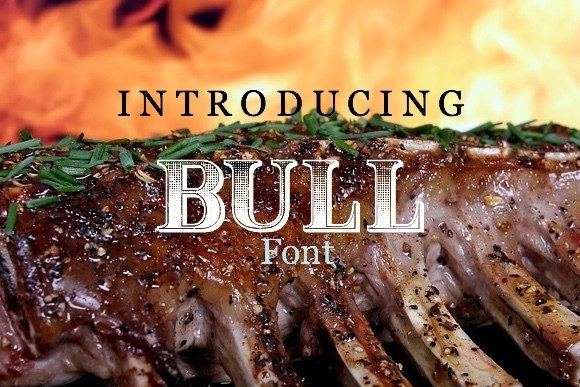
Journey into the Realm of Elegance with Bull Font - The Epitome of Sophistication and Grace
Bull Font - A Timeless Serif Masterpiece
Prepare to be spellbound by Bull Font, a serif marvel that will transport your creative visions to new heights of elegance. With its captivating curves and refined strokes, this font exudes an aura of sophistication that is simply irresistible.
Crafted by the visionary font designer, vladimirnikolic, Bull Font is a testament to the power of timeless design. Its meticulously crafted letterforms dance across the page with a grace that is both alluring and enchanting.
Unleash Your Creativity with Endless Possibilities
Bull Font is more than just a font; it's an open invitation to unleash your creativity and explore a world of design possibilities. Whether you're crafting stunning logos, captivating posters, or eye-catching flyers, Bull Font will elevate your designs with its inherent elegance and charm.
Imagine your designs adorned with Bull Font's refined serifs, adding a touch of sophistication to every letter. Let your words flow effortlessly across the page, captivating your audience with their timeless beauty.
Make a Statement with Bull Font
In a world saturated with visual noise, it's the distinctive designs that truly stand out and leave a lasting impression. With Bull Font as your creative ally, you'll have the power to create designs that command attention and convey a sense of luxury and prestige.
Your logos will radiate professionalism, your posters will exude elegance, and your flyers will entice viewers with their captivating charm. Bull Font is the key to unlocking a world of design possibilities where your creativity knows no bounds.